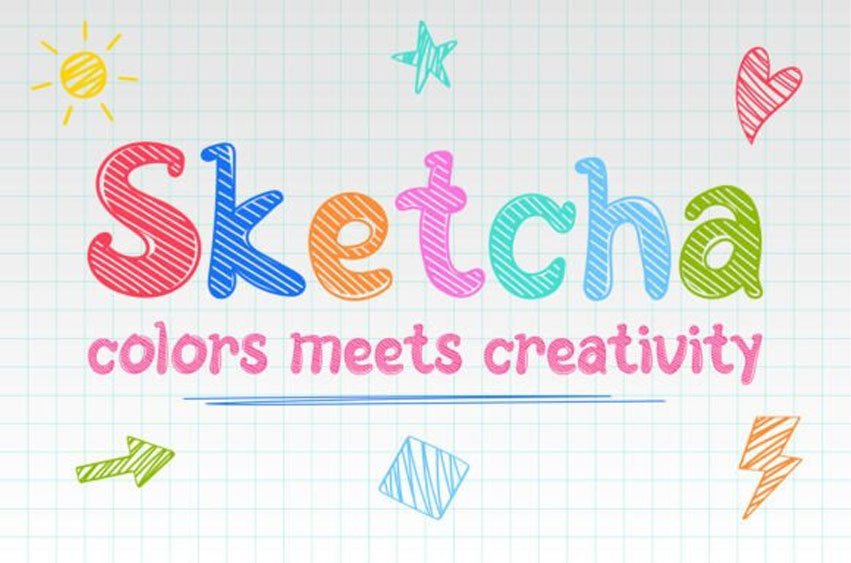
Sketcha Font is a lively, creative font designed to look exactly like letters rapidly colored in with a marker or pencil.
This bold typeface features chunky, rounded letterforms with an interior scribble or cross-hatch texture, perfectly simulating a hand-drawn, sketch-like effect. The intentional imperfections and bold outline give it a youthful, energetic flair.
Perfect for children’s branding, school project titles, crafting, comic books, vibrant advertising, and any design that needs a powerful dose of fun and color. The authentic, playful texture makes it a memorable headline choice. Use Sketcha to infuse your designs with unapologetic creativity, youthful enthusiasm, and a raw, spontaneous, hand-made artistic energy.